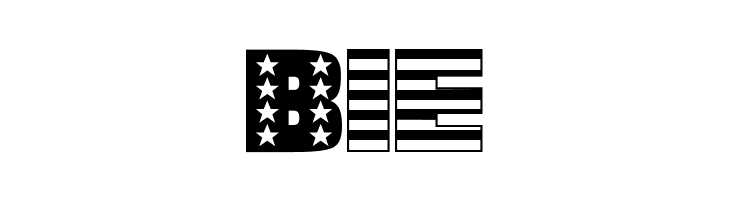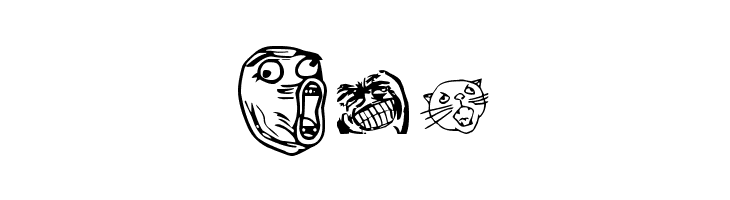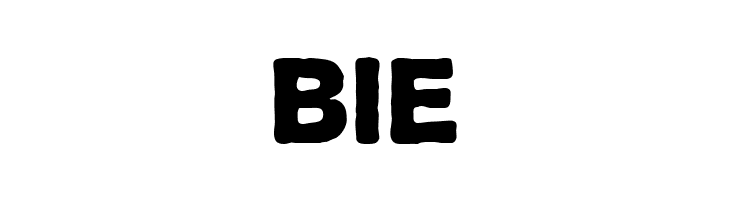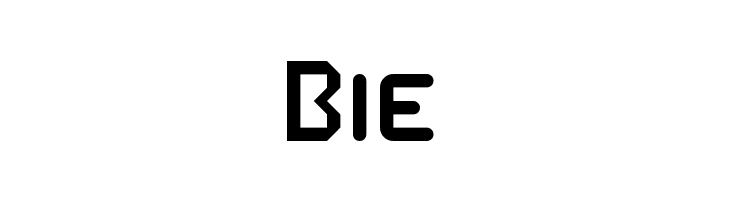
Hand-drawn meme faces with expressive, exaggerated features.
A bold, brush-style font with dynamic, sweeping strokes and a slanted, energetic appearance.
A bold, geometric font with a futuristic and tech-inspired design.
A bold, brush-stroke inspired font with dynamic, artistic flair.
A bold, impactful font with thick strokes and minimal contrast, perfect for strong visual statements.
A bold, decorative font with stars and stripes, ideal for thematic designs.
A bold, vintage-style font with a distressed, authoritative look.
A bold, playful handwritten font with a whimsical script style.